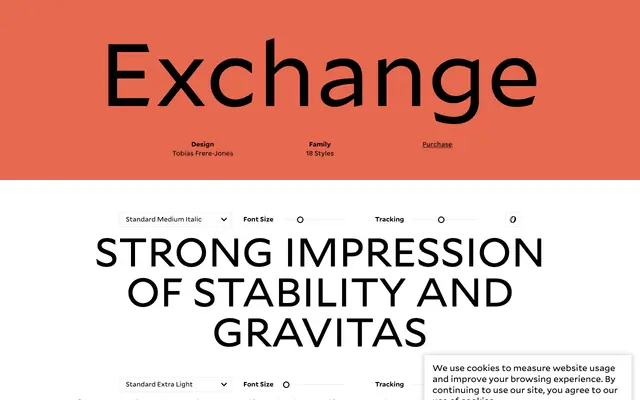
Exchange
Frere-Jones · Tobias Frere-Jones
A newspaper text face by Tobias Frere-Jones that draws on Ionic slab serifs and Victorian text traditions to hold legibility at small sizes across print and screen.
Originally drawn for newspaper columns, Exchange borrows its approach to word-shape coherence from early Ionic slabs and takes lessons in letter individuality from Bell Gothic. The compact proportions suit both narrow newspaper columns and mobile screens, and the MicroPlus subfamily extends its capability into digital text settings including web and video. Eighteen styles span two optical subfamilies, Standard and MicroPlus, each running from Light to Bold with italics throughout.
Exchange draws on early Ionic slab serif traditions and Victorian text faces for word-shape coherence, while incorporating lessons from Bell Gothic; its bracketed serifs and text-optimised proportions place it within the transitional/newspaper serif tradition rather than a pure slab category.